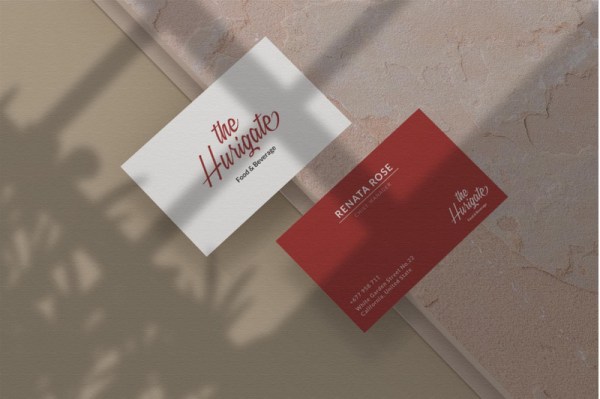
Freebie Wednesday: Millania Font.
Millania is a lovely modern feminine script font with OpenType features, including ligatures, numbers, punctuation, alternate, swashes and also multilingual support. Millania Script Font lets you create wedding invitations, wedding stationery, DIY, wrappers, fashion textile patterns, textures, posters, wedding decorations, gifts, quotes, blogs, wallpapers, stickers, etc.